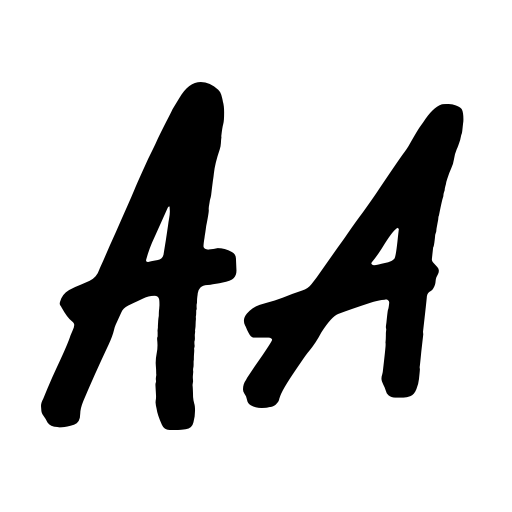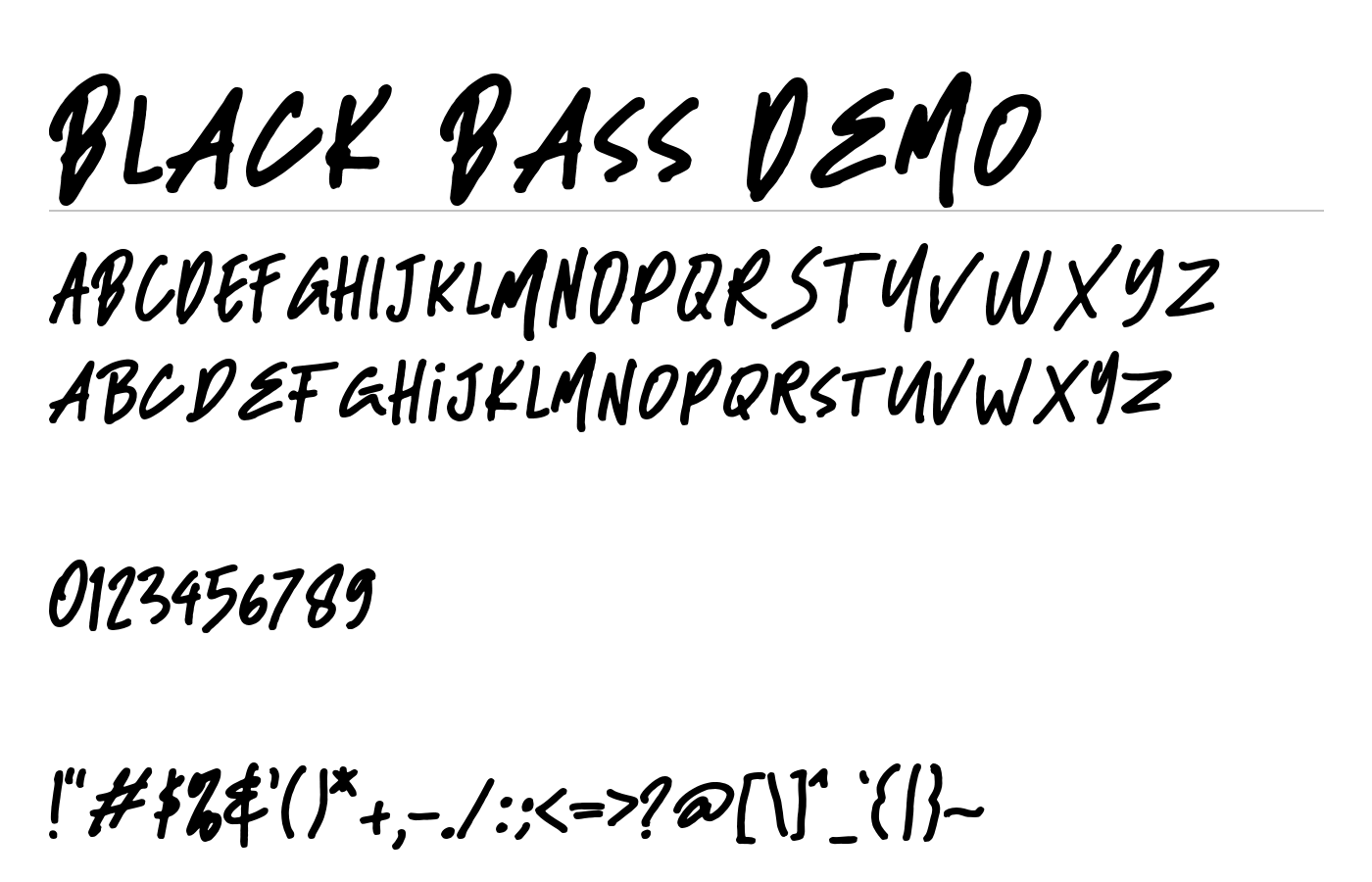
Black Bass is a bold, energetic script font with a hand-drawn, brushstroke style that feels casual yet dynamic. Its lively letterforms with varying stroke widths and slightly irregular shapes make it perfect for creative branding, posters, and headlines where a personal, expressive touch is desired. This font adds a spirited, modern vibe to any design that aims to stand out with a handwritten, artistic flair.
Black Bass Font
About Black Bass Font
| Font family | Black Bass Font |
| Designer | Sabrcreative Studio |